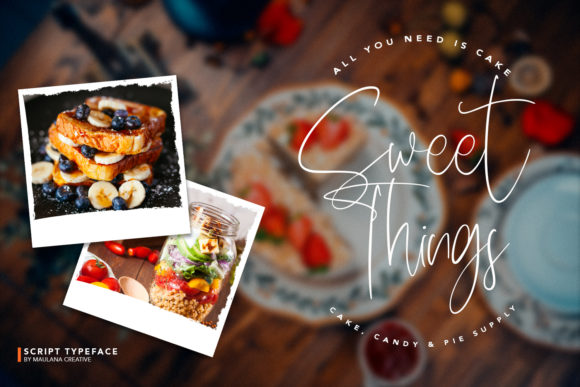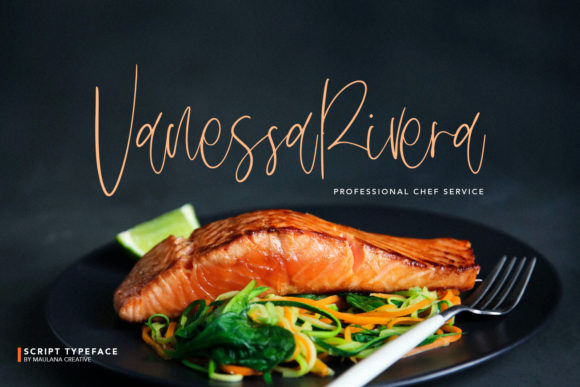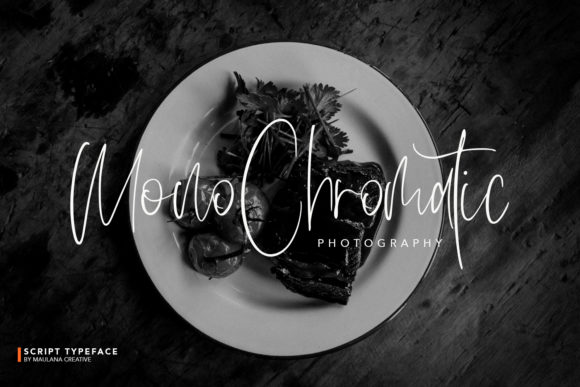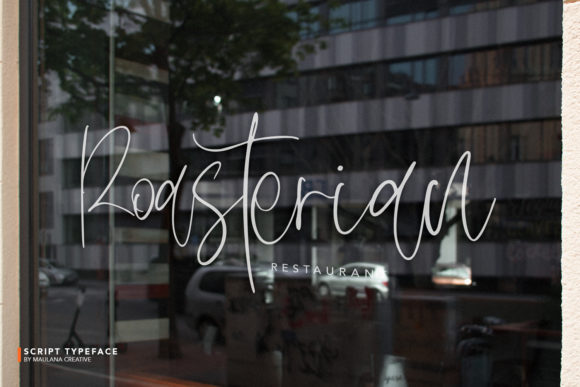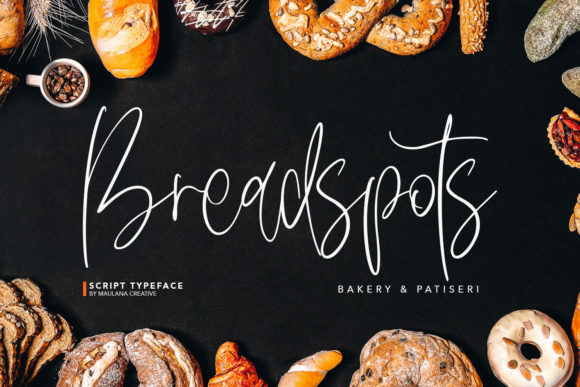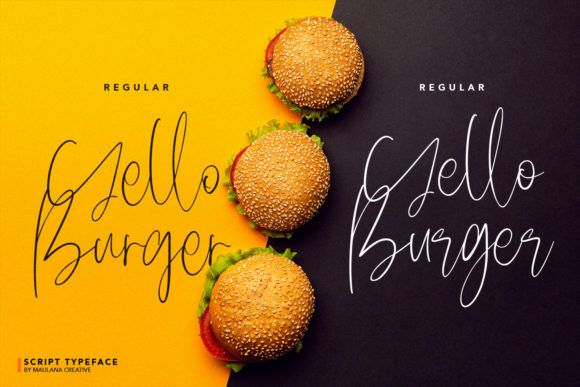
The Perfect Blend of Elegant and Relaxed: Delycious Font
Have you ever sat down with a cup of coffee, a blank sheet of paper, and a pen, only to be transported to a world of creativity where the words flow effortlessly? That’s exactly what happened when the Delycious Font was born. This beautiful, handwritten font is more than just a typeface – it’s an experience that brings a touch of warmth and personality to any design.
As a designer, you’re constantly on the lookout for the perfect font to elevate your work. Whether it’s a wedding invitation, a thank you card, or a business logo, the right font can make all the difference. That’s where the Delycious Font comes in – a versatile and stylish option that adds a handwritten touch to any design, making it perfect for a wide range of applications.
Delycious Font Key Features
- Font Family: Delycious Font
- Font Style: Script, Casual, Elegant
- Unique Characteristics: Hand-drawn, cursive, and artistic design elements, with subtle texture and flair
Delycious Font Review
I’ve had the chance to work with Delycious Font for a project, and here’s my honest review.
The Delycious Font has a unique, playful style that’s perfect for creative projects or designs that need a bit of whimsy. The font’s rounded edges and soft curves make it easy on the eyes, and the variety of weights and styles available gives designers a lot of flexibility.
- Unique and playful style
- Easy on the eyes
While I love the overall look and feel of Delycious Font, there are a few limitations that might make it less suitable for certain projects.
- Not ideal for formal or professional designs
- May be too playful for projects that require a more serious tone
- Some characters may not display correctly in certain fonts or browsers
Delycious Font is a solid choice for designers who want to add a bit of personality to their projects. While it may not be suitable for every project, it’s a great option for those who want a unique and eye-catching font. With a bit of caution and consideration, Delycious Font can be a great addition to any designer’s toolkit.
For optimal results, use Delycious Font in bold or italic styles to add emphasis to your text.
Common use cases for Delycious Font include:
– Branding and logo design
– Food and beverage packaging
– Restaurant and cafe menus
– Fashion and lifestyle magazines